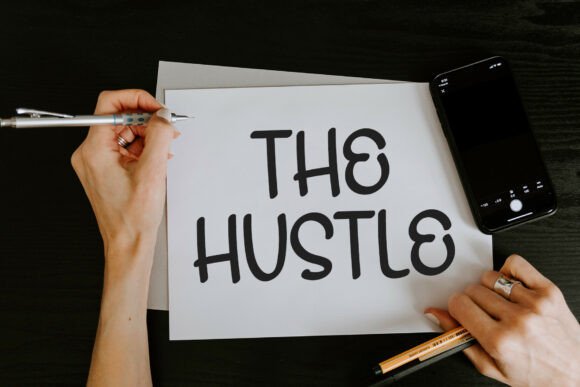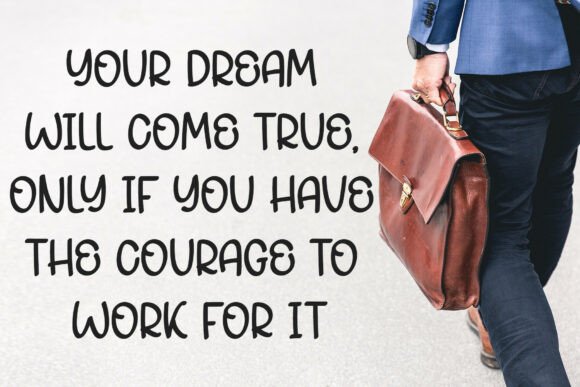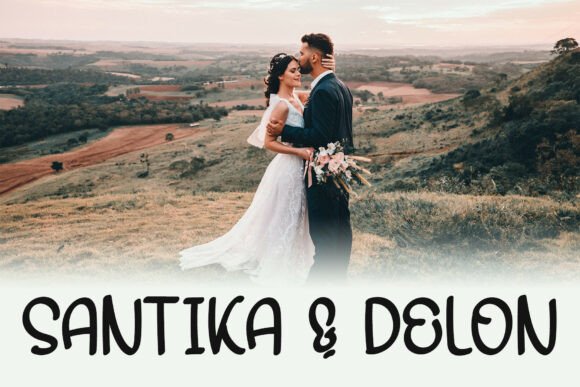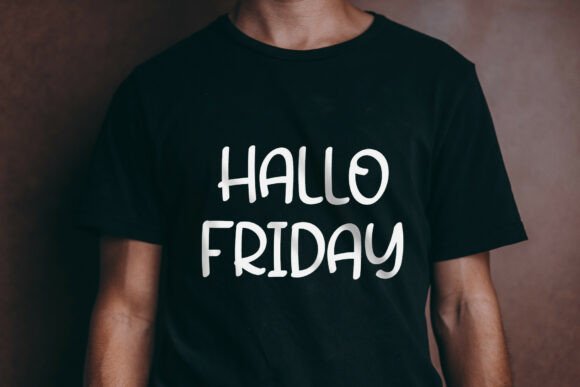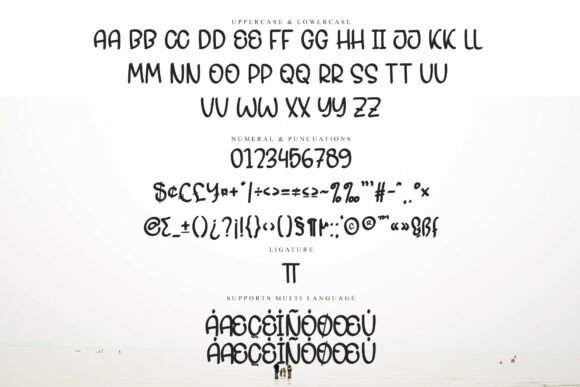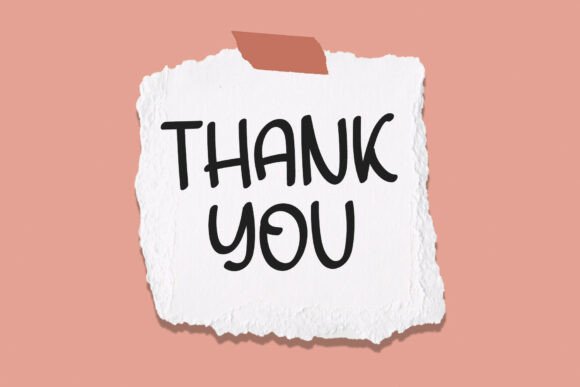
Introducing Bookmark Handwriting Font: The Ultimate Display Font for Bold Designs
In the world of typography, a font can make or break a design. When it comes to creating a lasting impression, designers and crafters need a font that commands attention and exudes confidence. That’s where Bookmark Handwriting Font comes in – a bold and captivating display font that is sure to elevate your designs to the next level.
The Power of Bookmark Handwriting Font
Bookmark Handwriting Font is a powerful and distinctive font that blends creativity and impact. Its strong, bold letterforms are designed to stand out, making it perfect for projects that require an eye-catching and memorable typographic style. Whether you’re working on branding, posters, or digital designs, this font adds a touch of bold magic to your visuals.
Key Features of Bookmark Handwriting Font
- Bold and Captivating: The font’s strong, distinctive letterforms demand attention and make a lasting impression.
- Versatile: Suitable for a wide range of design projects, including branding, posters, digital designs, and more.
- Easy to Read: Despite its bold nature, the font remains clear and easy to read, even at smaller sizes.
- Unique Style: The font’s handwriting-inspired aesthetic adds a touch of personality and whimsy to your designs.
Uses for Bookmark Handwriting Font
Bookmark Handwriting Font is an incredibly versatile font that can be used in a variety of design projects. Here are some ideas to get you started:
- Branding: Use the font to create bold, eye-catching logos and typographic marks that make a lasting impression.
- Posters and Flyers: Add a touch of drama and flair to your posters and flyers with this attention-grabbing font.
- Digital Designs: Use the font to create stunning digital designs, including social media graphics, website headers, and more.
- Signage: The font’s bold nature makes it perfect for signage, including store signs, billboards, and more.
Tips for Using Bookmark Handwriting Font
To get the most out of Bookmark Handwriting Font, here are some tips to keep in mind:
- Use it sparingly: Due to its bold nature, it’s best to use the font sparingly to avoid overwhelming the viewer.
- Pair it with a neutral font: Pair the font with a neutral font to create visual interest and add contrast to your design.
- Experiment with colors: The font looks great in a variety of colors, so don’t be afraid to experiment and find the perfect hue for your design.
Bookmark Handwriting Font is a powerful and captivating display font that is sure to elevate your designs to the next level. Its bold, distinctive letterforms make it perfect for projects that require an eye-catching and memorable typographic style. With its versatility, ease of use, and unique style, this font is a must-have for designers and crafters looking to add a touch of bold magic to their visuals.